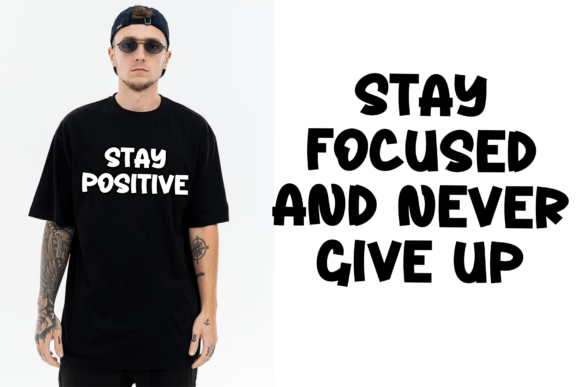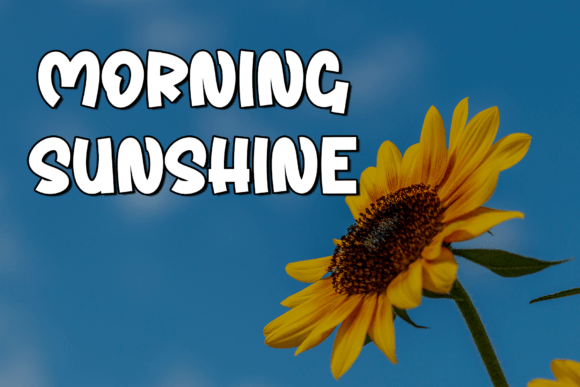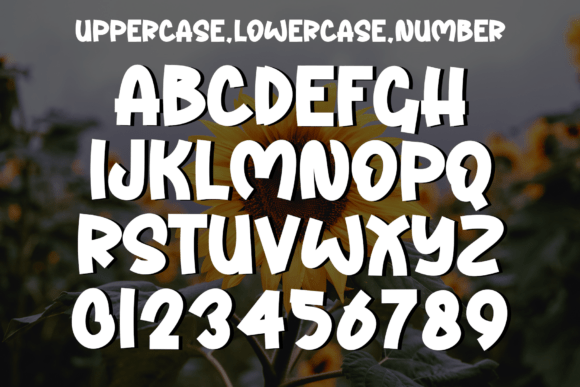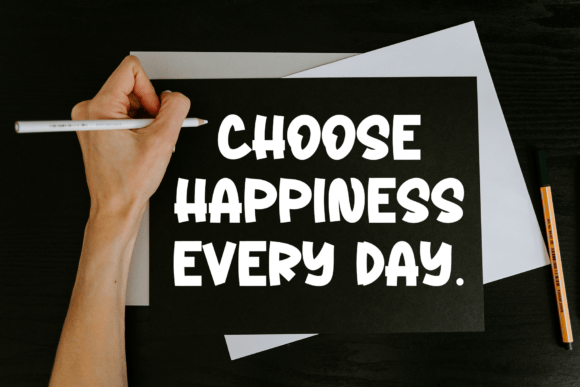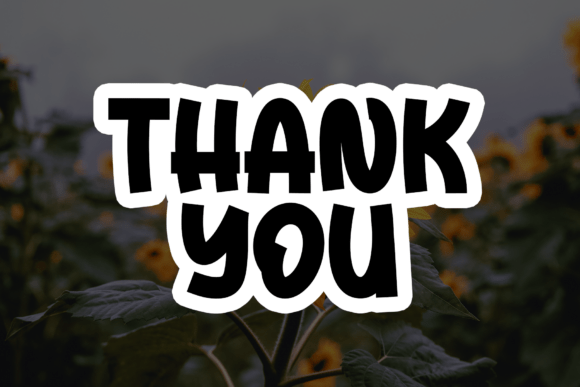
Introduction to Shine Sunday Font
Have you ever been scrolling through your social media feed, and a stunning design catches your eye? Maybe it’s a beautifully crafted logo, or a visually appealing poster that screams ‘creative genius.’ As designers, we’re always on the lookout for that next great design resource – something that can elevate our projects and leave a lasting impression. For those seeking a font that embodies modernity and approachability, look no further than the Shine Sunday Font.
This high-quality font offers a perfect blend of clarity and relaxation, making it an ideal choice for a wide range of creative projects, from packaging and branding to posters and headlines. With its clean lines and friendly letterforms, the Shine Sunday Font is a valuable addition to any designer’s toolkit, providing endless possibilities for crafting unique and engaging designs.
- Unique, hand-crafted font with a modern and elegant feel, perfect for adding a touch of sophistication to your design.
- Designed to be highly legible, making it an excellent choice for body text, headings, and titles in your design project.
Honest Review: Shine Sunday Font
- ✨ Great for headings and titles, adding a touch of elegance to any design
- ⚠️ Limited character set, which may not be ideal for longer blocks of text
- ⚠️ May not be suitable for small font sizes, as it can become difficult to read
Overall, I’m impressed with the Shine Sunday Font. It’s a great addition to any designer’s toolkit, offering a unique and high-quality option for creative projects. While it may have some limitations, it’s definitely worth considering for your next design project.
Shine Sunday Font
Tips for Getting the Most Out of Shine Sunday Font
To maximize the impact of the Shine Sunday Font, try using it in bold and creative ways, such as:
- Using it as a heading font to draw attention to important information.
- Combining it with other fonts to create a unique and visually appealing design.
- Experimenting with different font sizes and colors to add depth and interest.
Common Use Cases for Shine Sunday Font
The Shine Sunday Font is perfect for:
- Designing social media graphics and advertisements.
- Creating promotional materials for events and businesses.
- Developing branding and identity materials for companies and organizations.